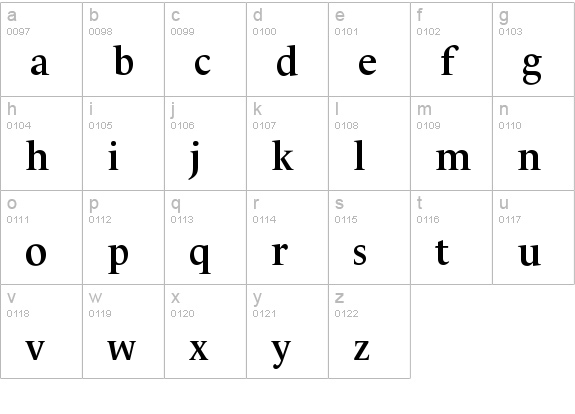
LeMondeLivre Demi is a sub-bold, structured variant in the LeMondeLivre typeface family \xE2\x80\x94 well suited to sub-headlines and emphasised passages.
LeMondeLivre Demi font is a beautifully crafted typeface that exudes elegance and sophistication. Its sleek and modern design makes it perfect for a wide range of applications, from editorial and branding to web design and advertising. With its clean lines and balanced proportions, LeMondeLivre Demi font is highly legible and easy on the eyes, ensuring a smooth reading experience. The semi-bold weight adds just the right amount of emphasis, making it ideal for headlines and titles. One of the best things about LeMondeLivre Demi font is that it's free! Yes, you read that right. This incredible font is freely available to download at FontsMarket.com. So whether you're a professional designer or a hobbyist, you can now add this stunning typeface to your collection without breaking the bank. LeMondeLivre Demi font is not only visually appealing but also versatile. Its extensive character set includes a wide range of accents and special characters, making it suitable for multilingual projects. Plus, its OpenType features provide additional stylistic alternates and ligatures, giving you even more creative control. So why wait? Go ahead and download LeMondeLivre Demi font from FontsMarket.com. Enhance your designs with this remarkable typeface that combines beauty, functionality, and the best part - it's free!